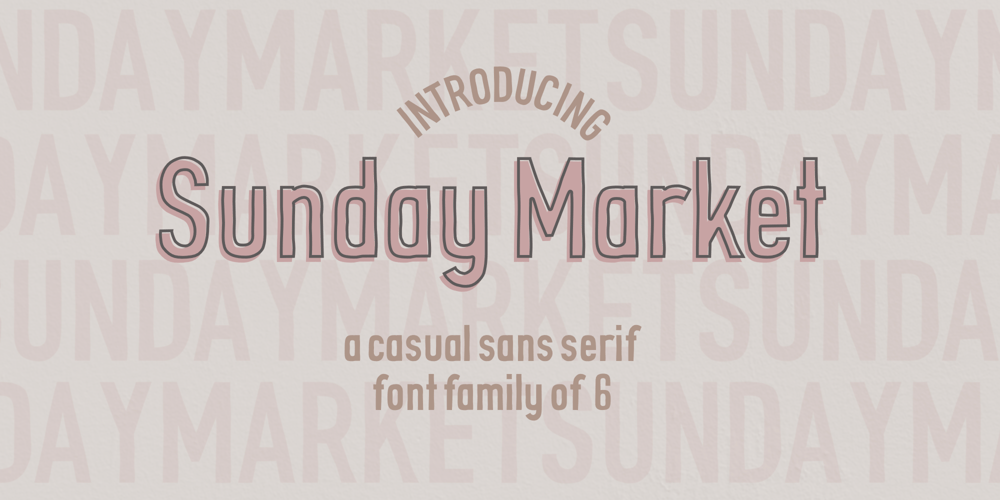
Sunday Market Font Family was designed by Alessa Jo and published by Melonaqua. Sunday Market contains 6 styles and family package options. Sunday Market is a casual and playful sans serif font family. It is a family of six that supports multilingual languages. The font family is suited for any project.